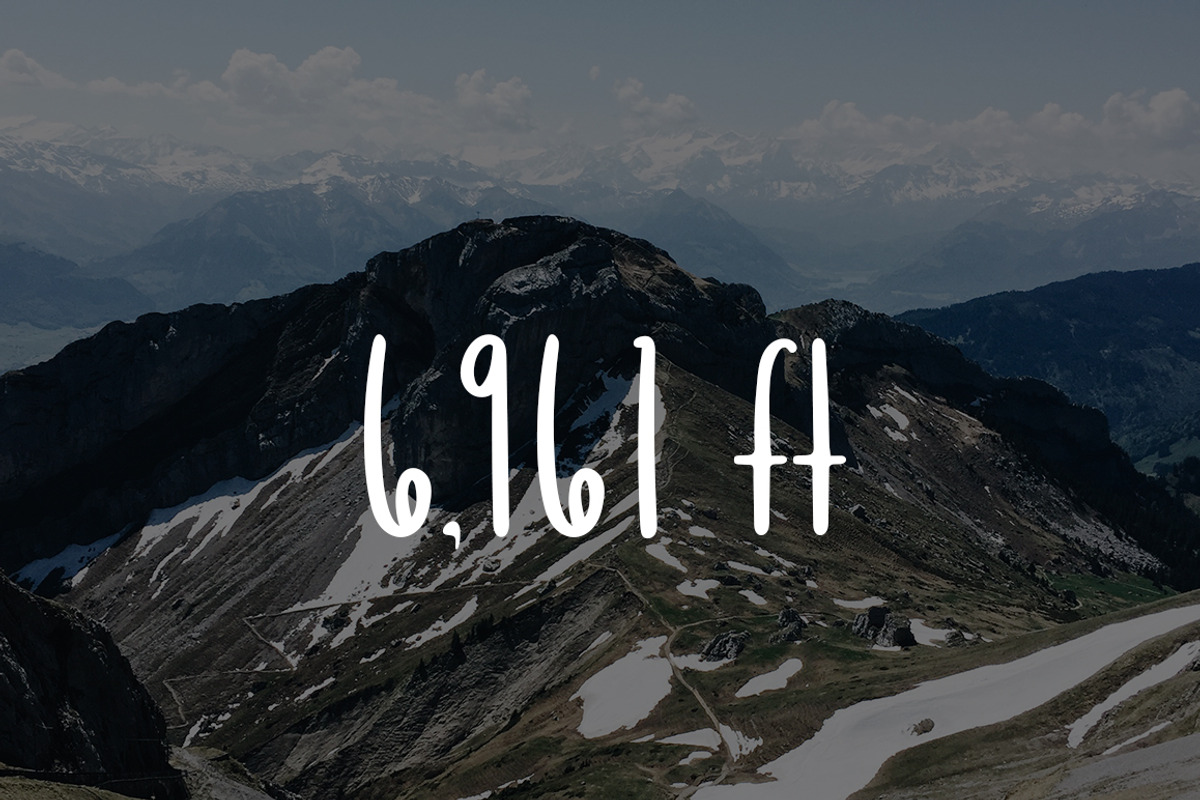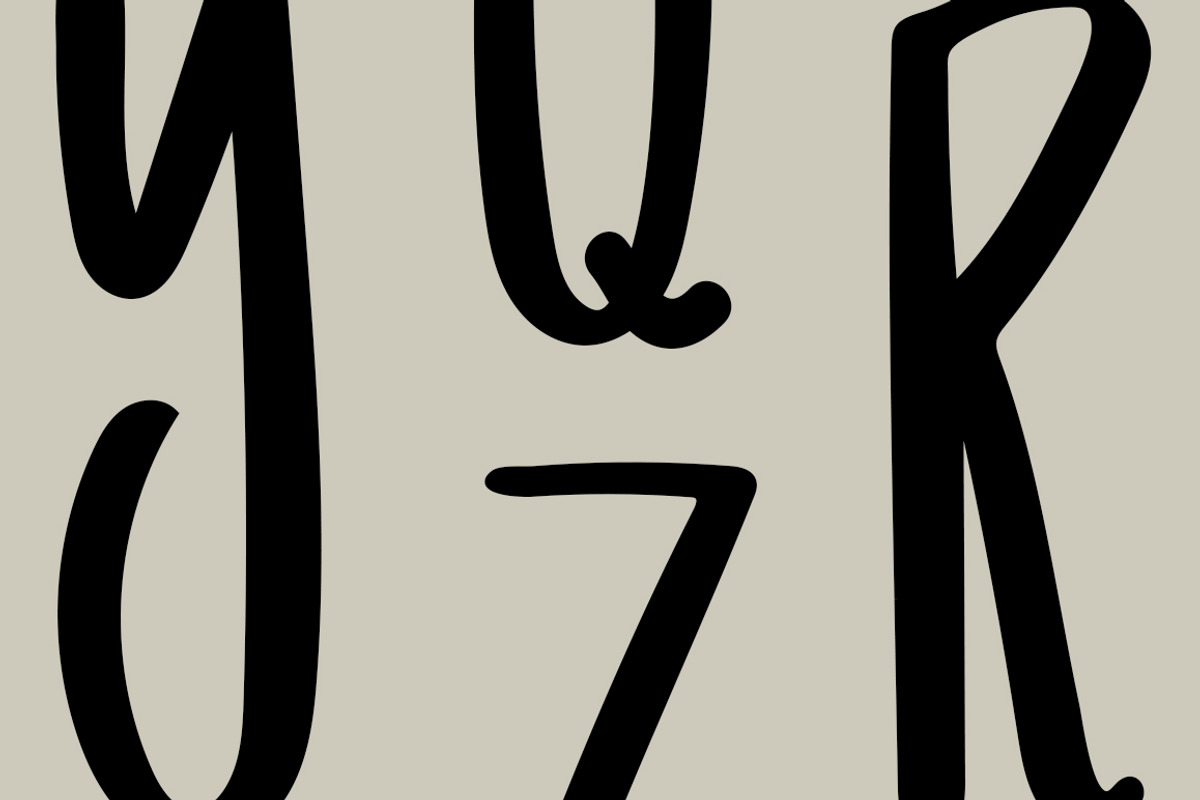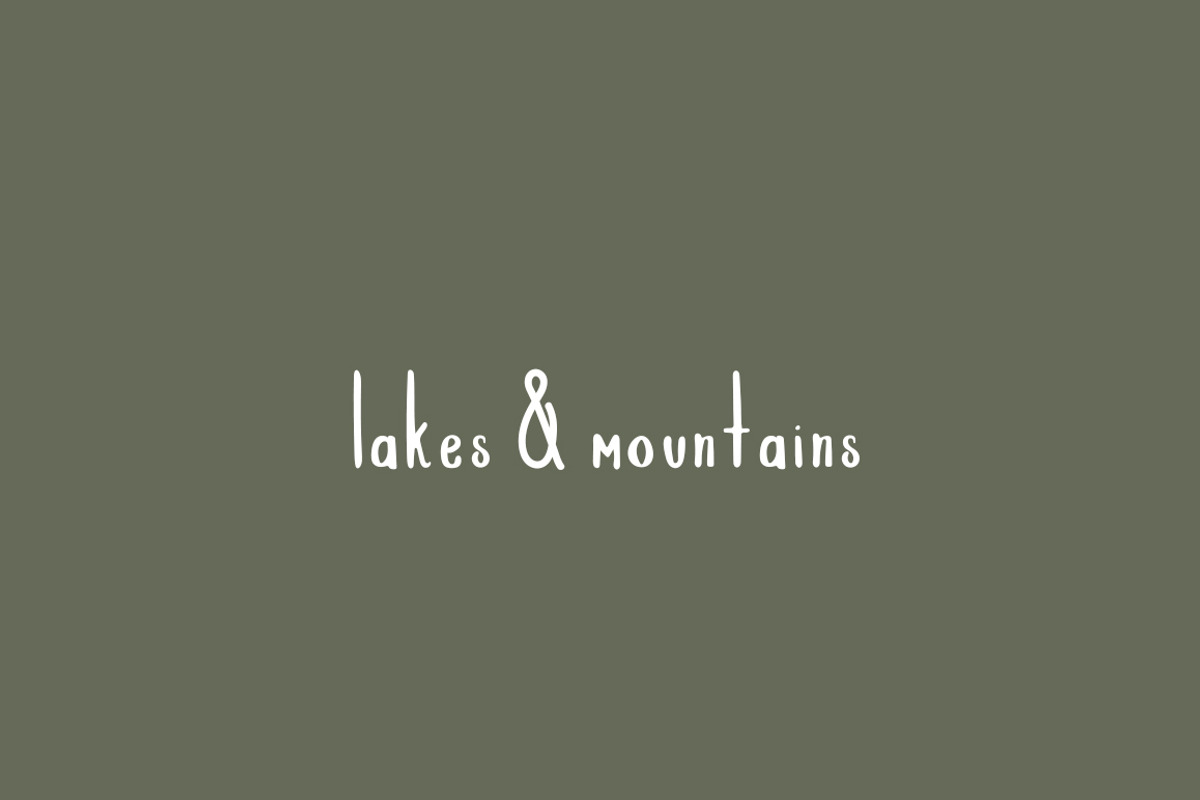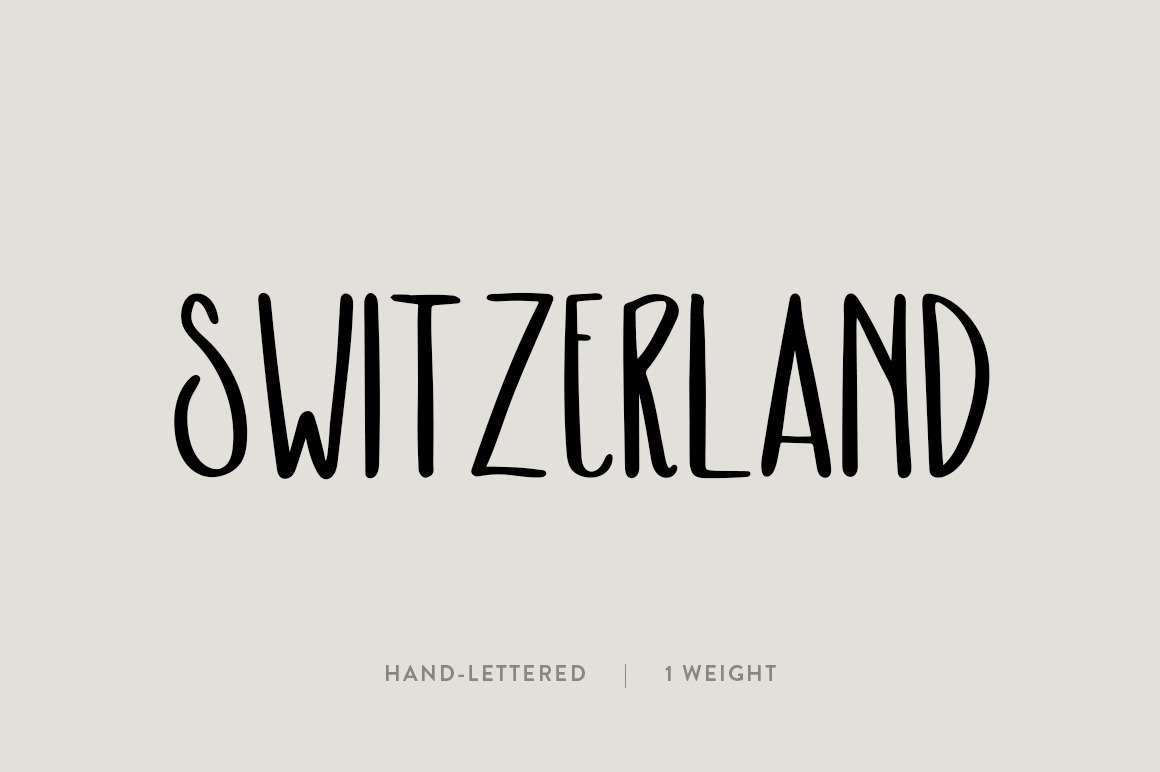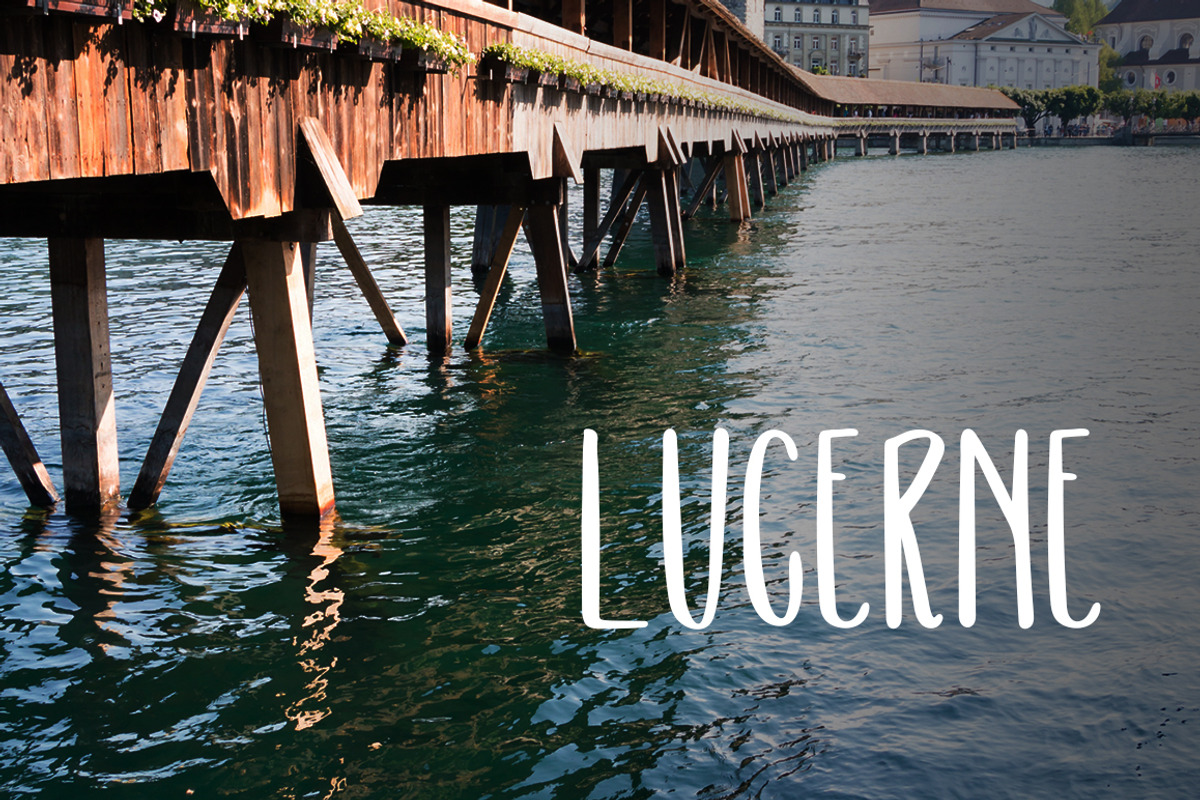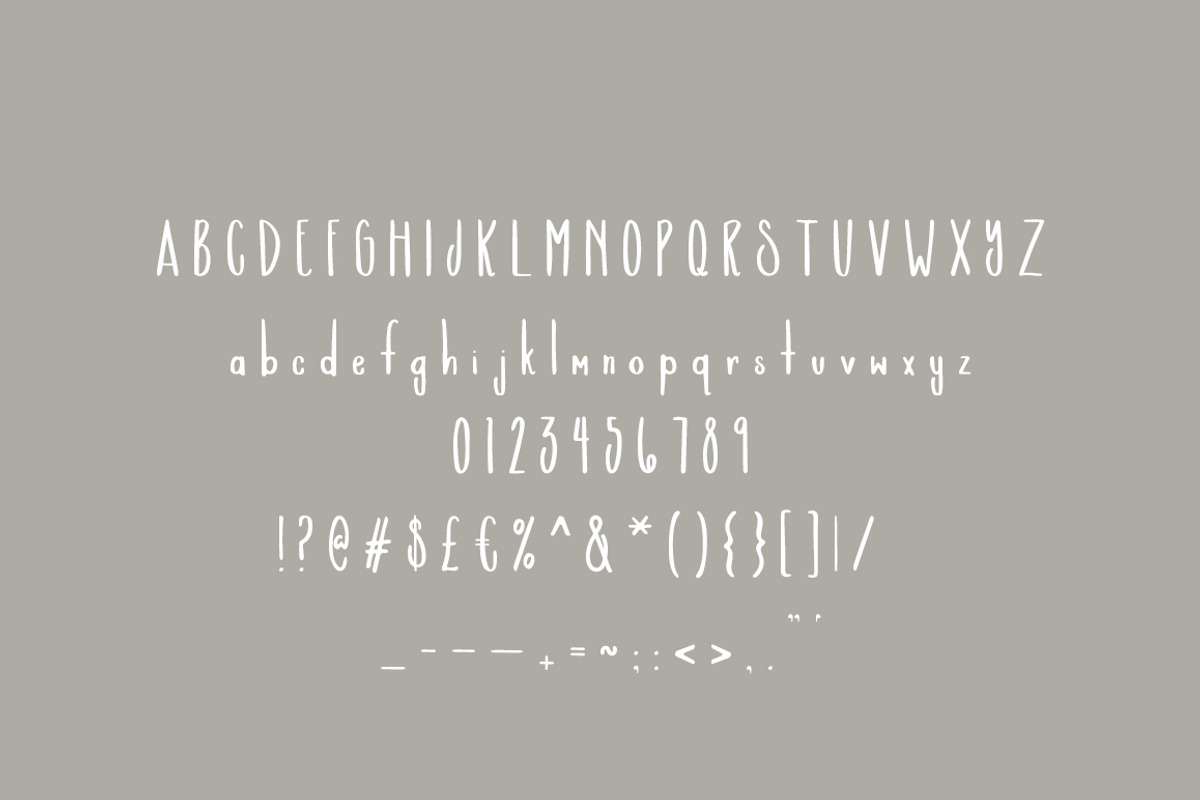
Switzerland: A Hand-Lettered Font
The Switzerland Font
Switzerland was inspired by a spring trip to the Alps wandering around Lucerne and hiking in the Lauterbrunnen Valley. Being immersed in nature with such dramatic landscapes inspired me to create a font with low valleys and high peaks to reflect the beauty of the country. With its tall presence and organic form, this font works best as a header font or for smaller bodies of text. It is perfect for projects that need natural-looking fonts like blog posts, social graphics, event posters, and logos.
This font was created by hand and then digitized. Enjoy!